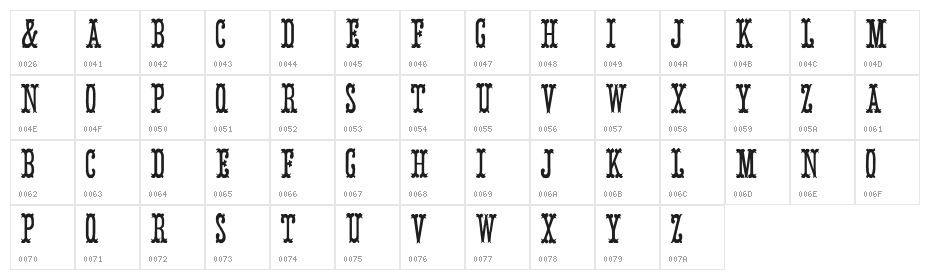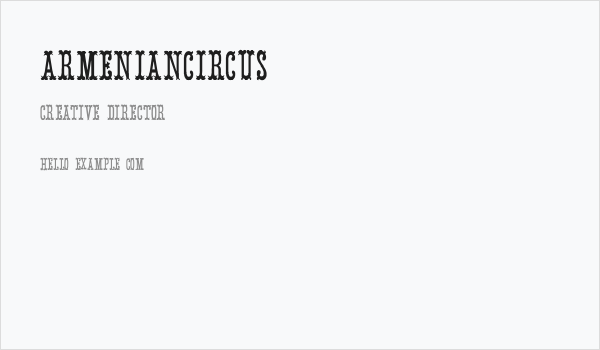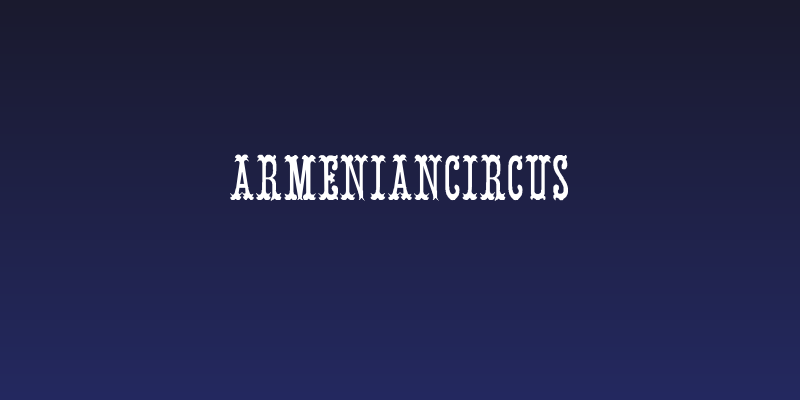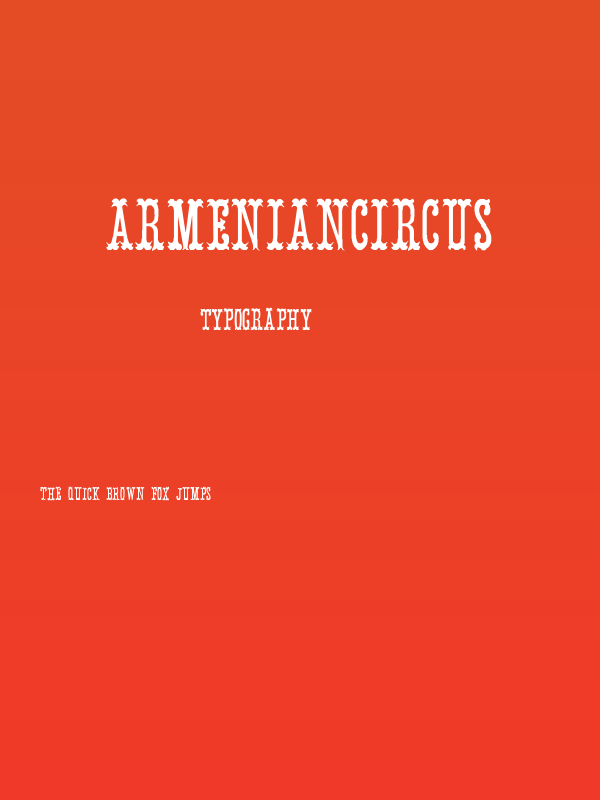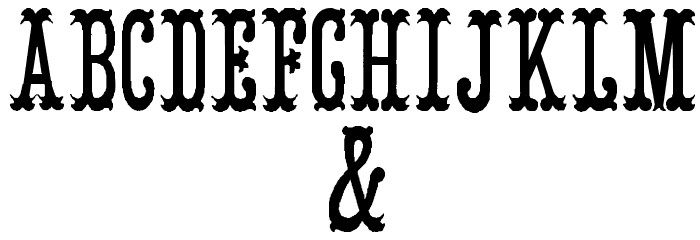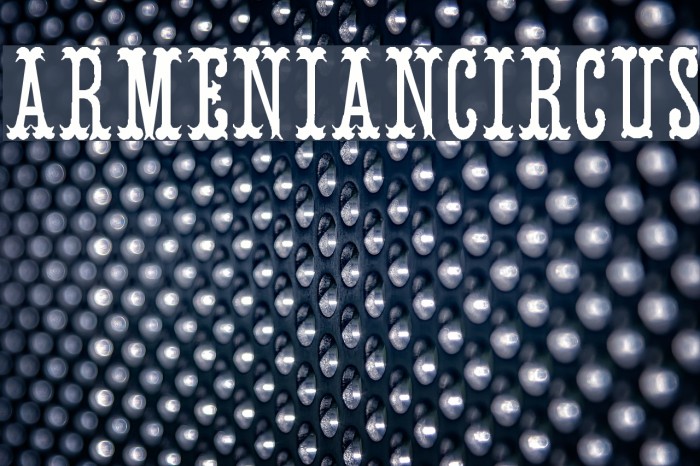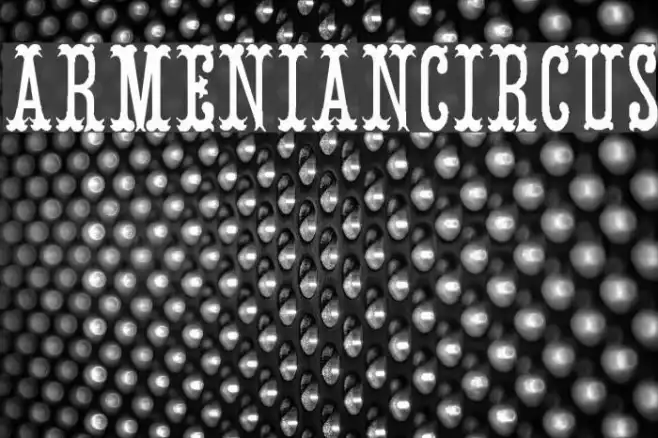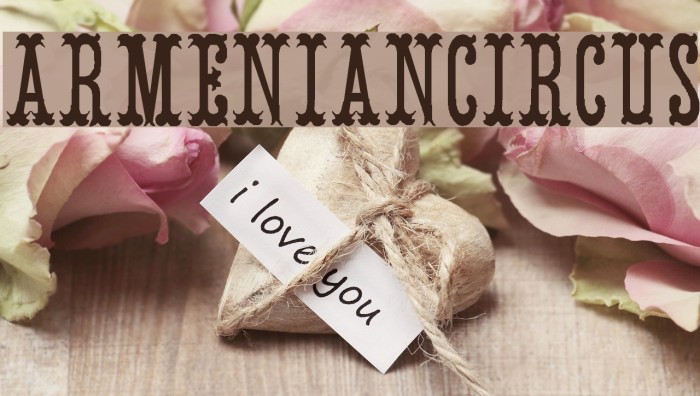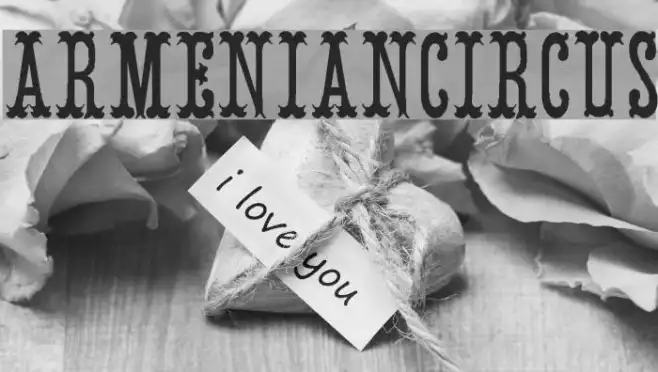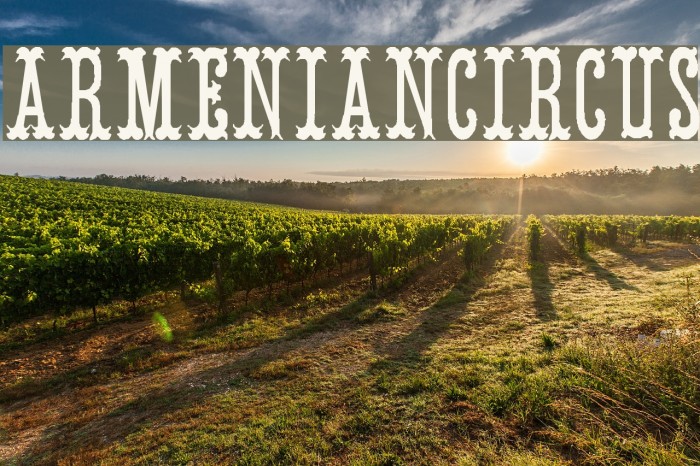
ArmenianCircus Font
ArmenianCircus Description
This font features a bold and decorative style with intricate serifs and flourishes that evoke a vintage circus or carnival theme. The characters are highly stylized, with ornate detailing that adds a sense of whimsy and nostalgia. The uppercase letters are particularly elaborate, with each character displaying unique embellishments that enhance its playful and theatrical appearance. The font's design is reminiscent of old-fashioned poster typography, making it ideal for projects that require a touch of retro charm and visual impact.
| Proposed Projects | Ideal for vintage-themed posters, circus event flyers, theatrical playbills, and retro branding projects. |